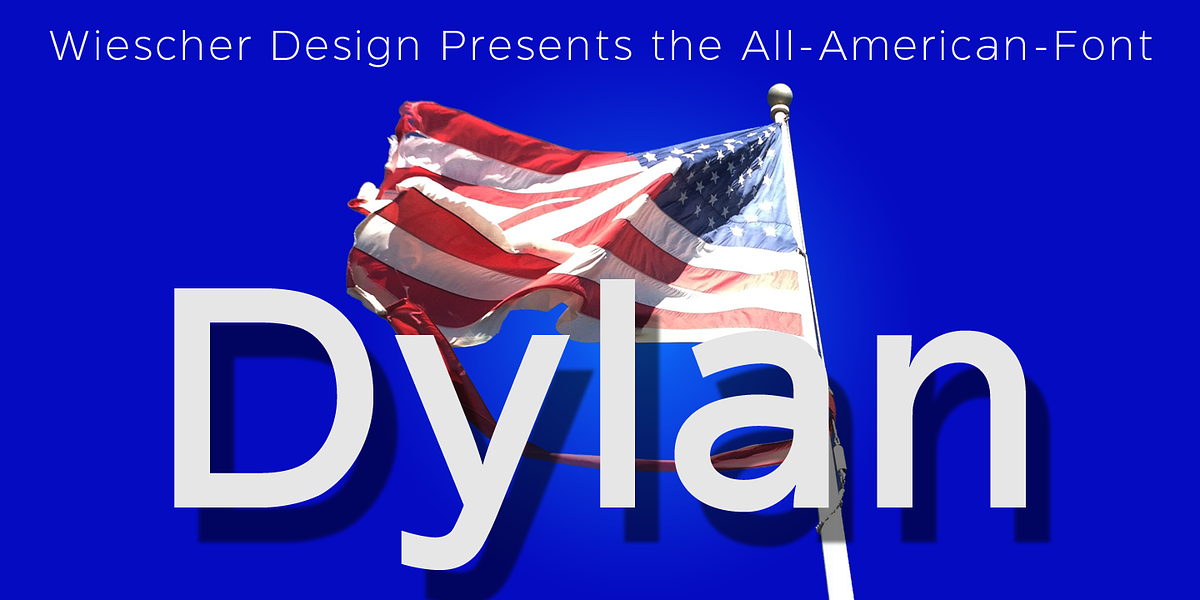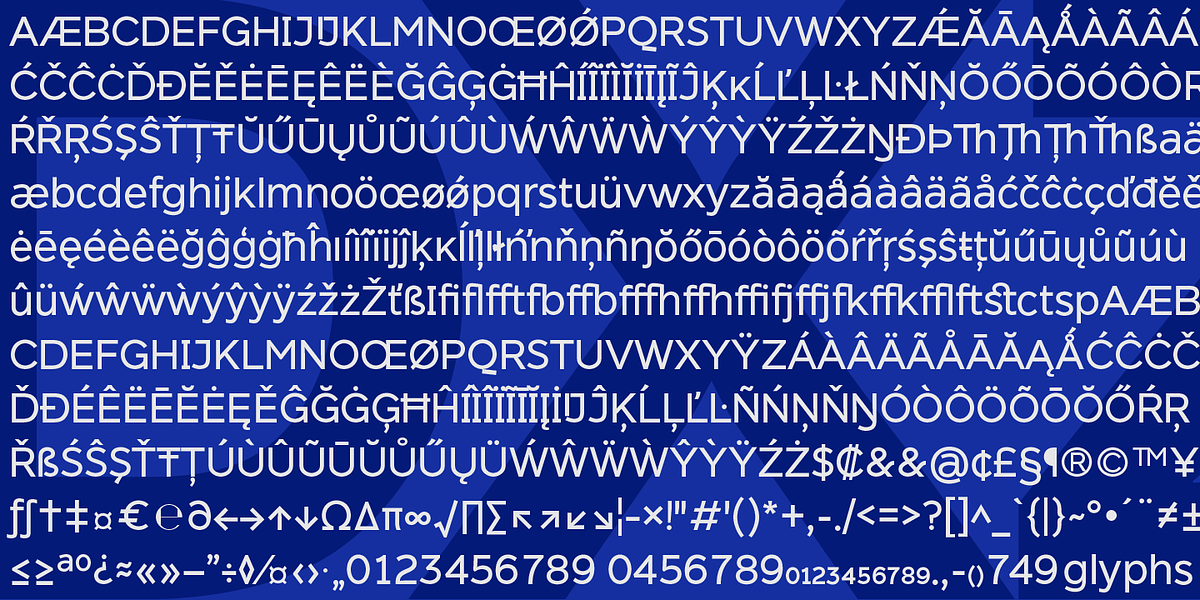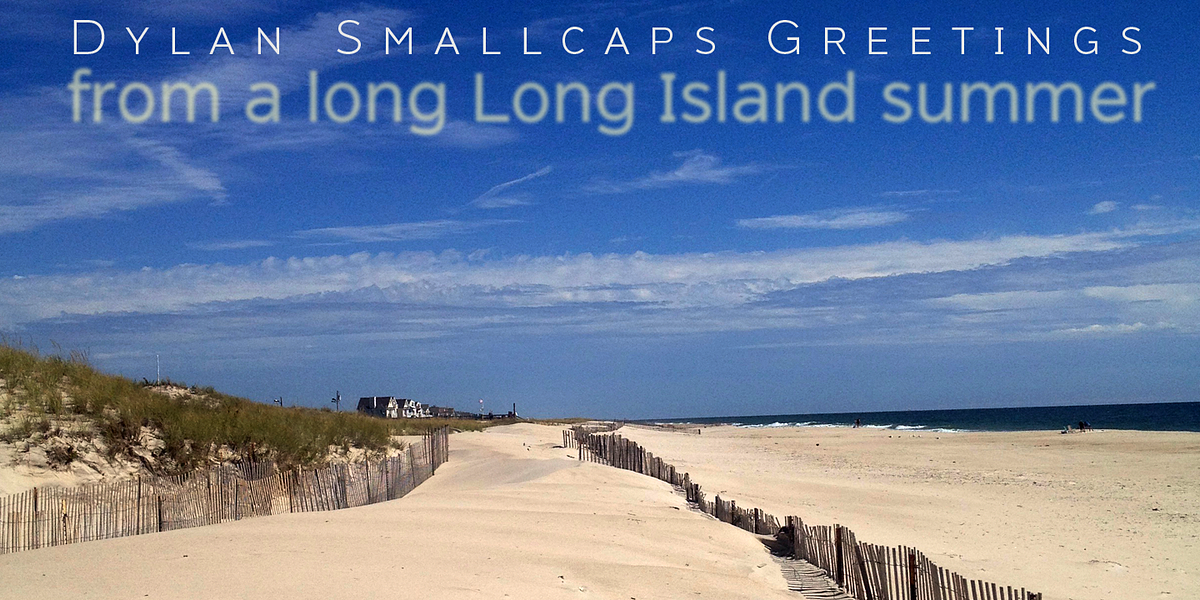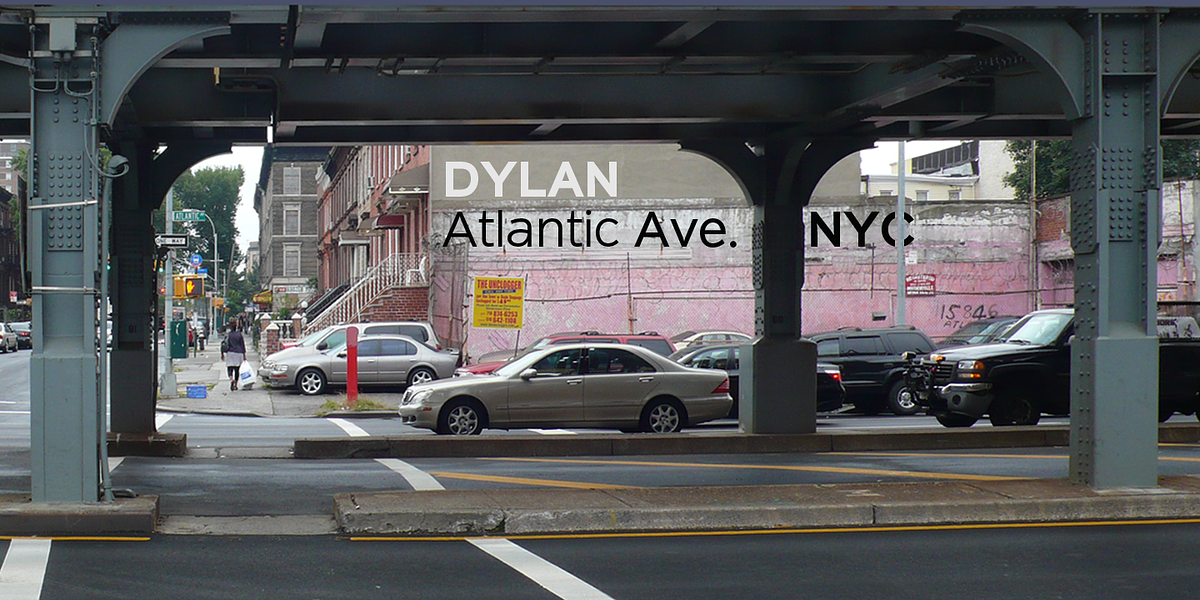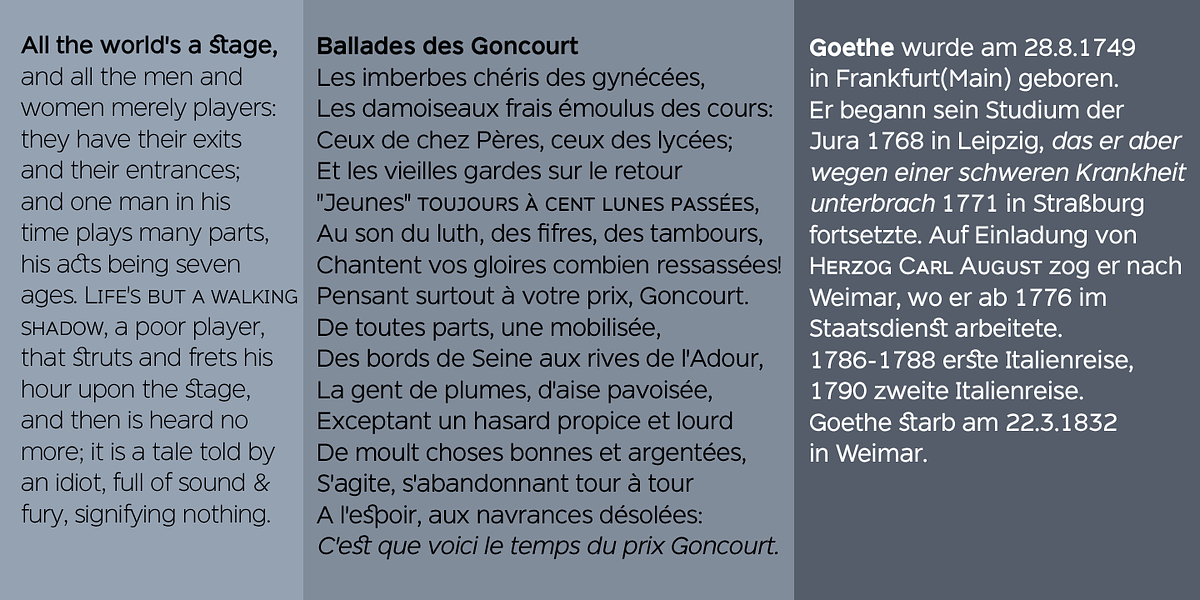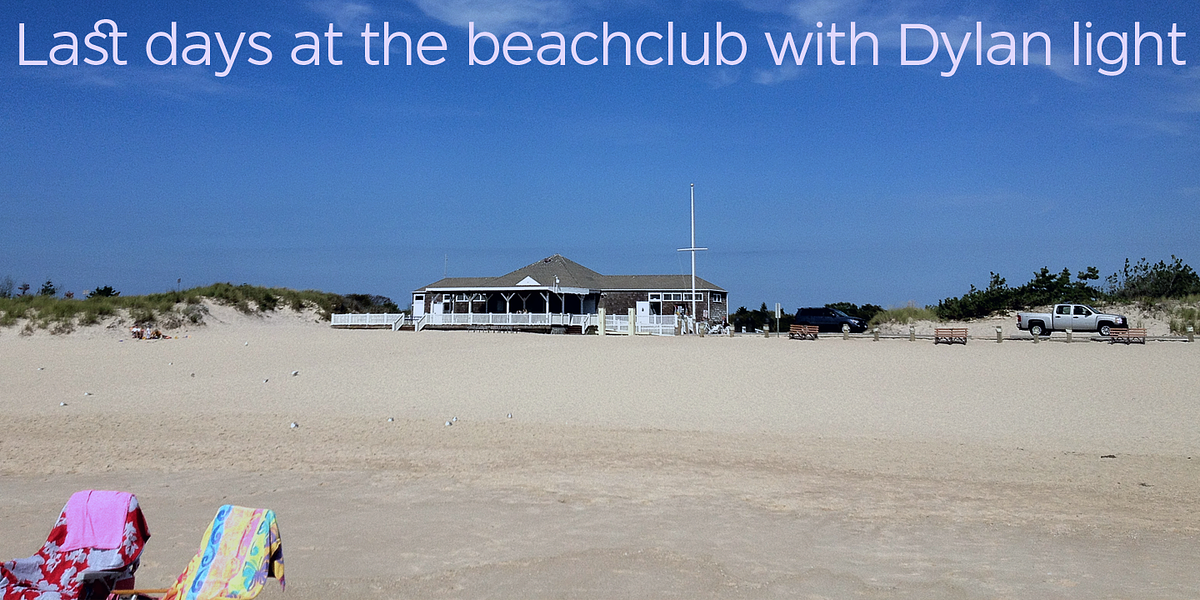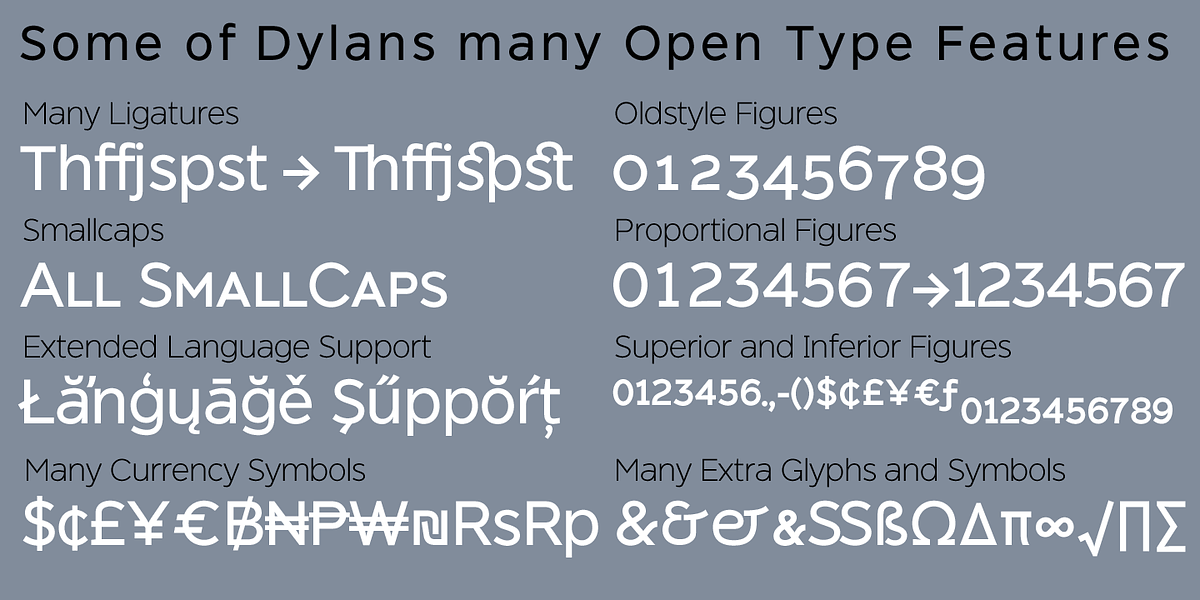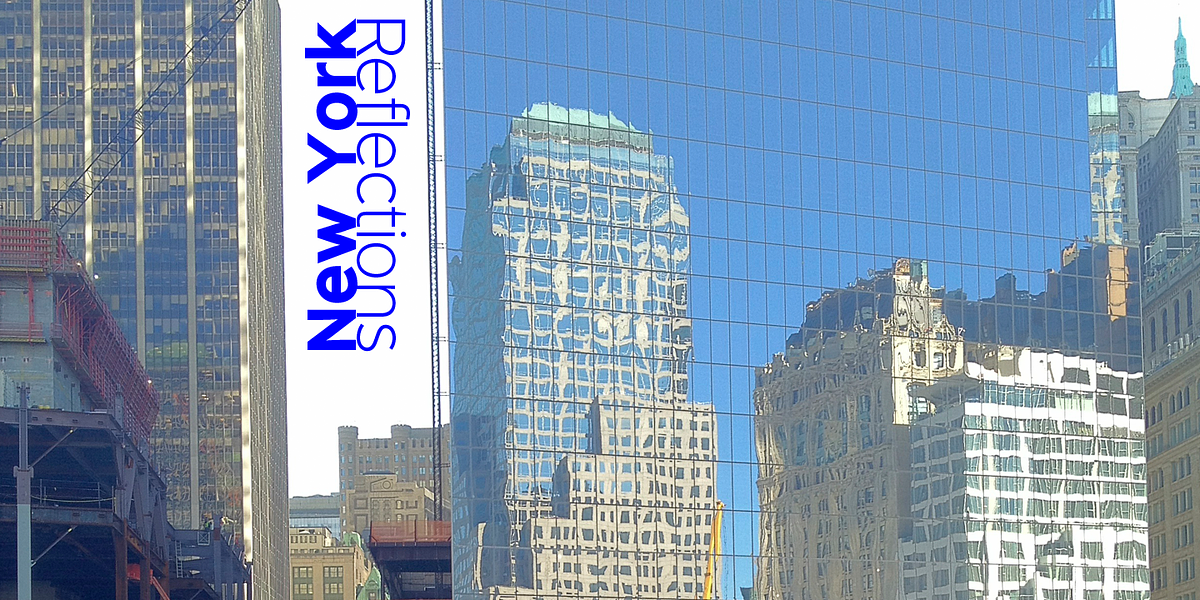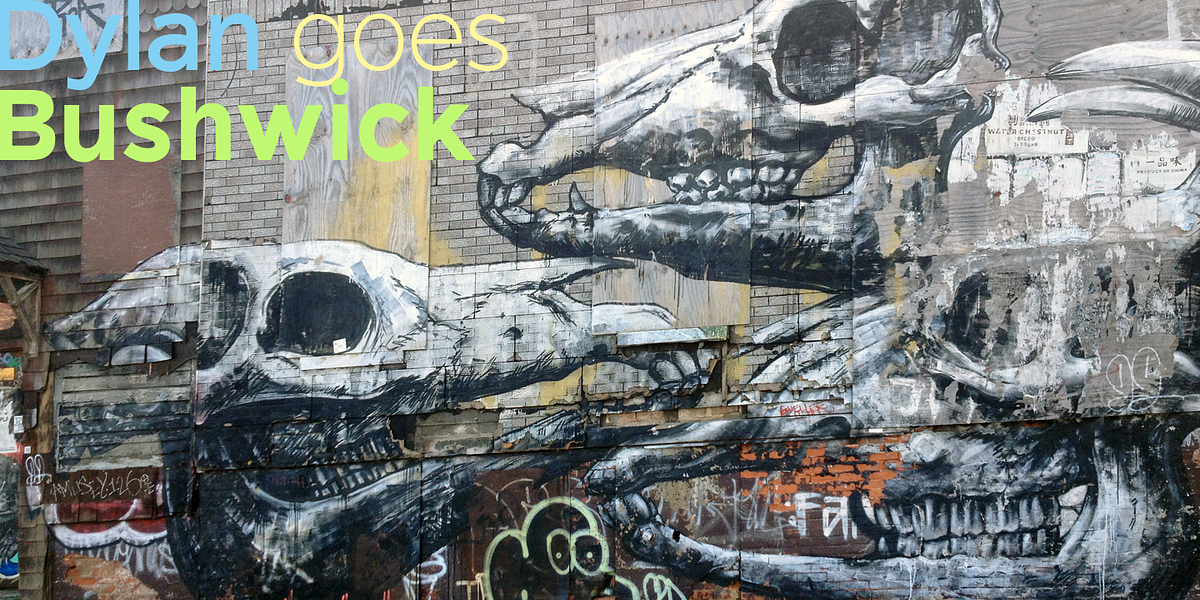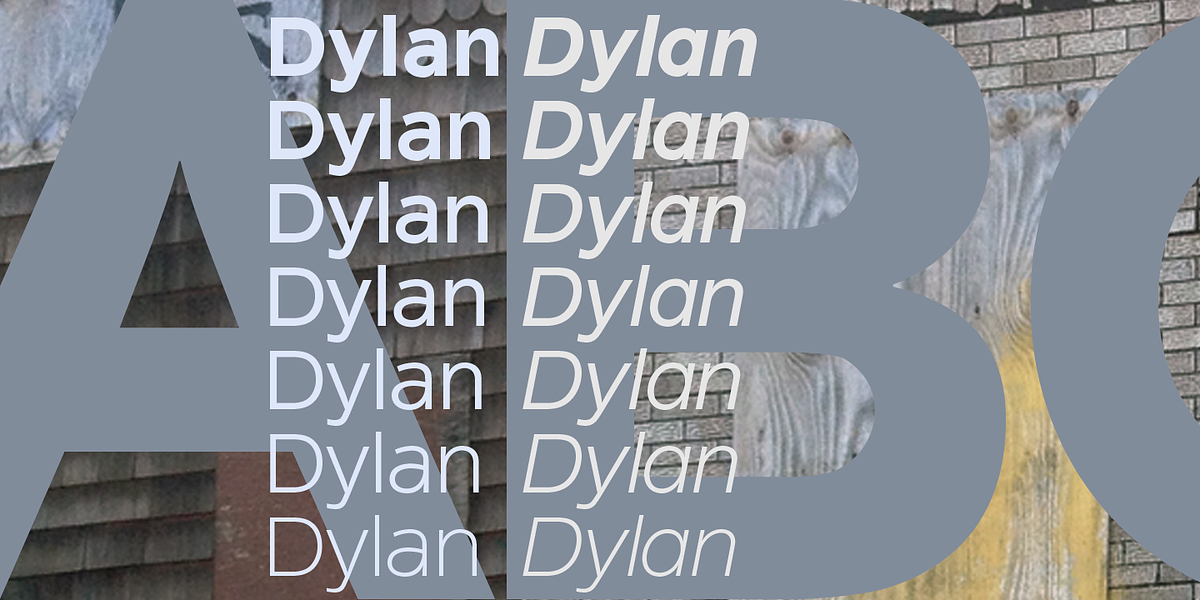
Dylan
Dylan is a geometric sans serif typeface designed for readability. It features deep cuts at the junctions of curves and straight lines to enhance legibility, especially in smaller sizes. The font family includes seven weights with corresponding italic styles, full small caps support, and extensive language coverage (most European languages plus Turkish). Additional features include fractions, mathematical symbols, and currency symbols. Its versatility makes Dylan suitable for a variety of applications, from paragraph text to signage.